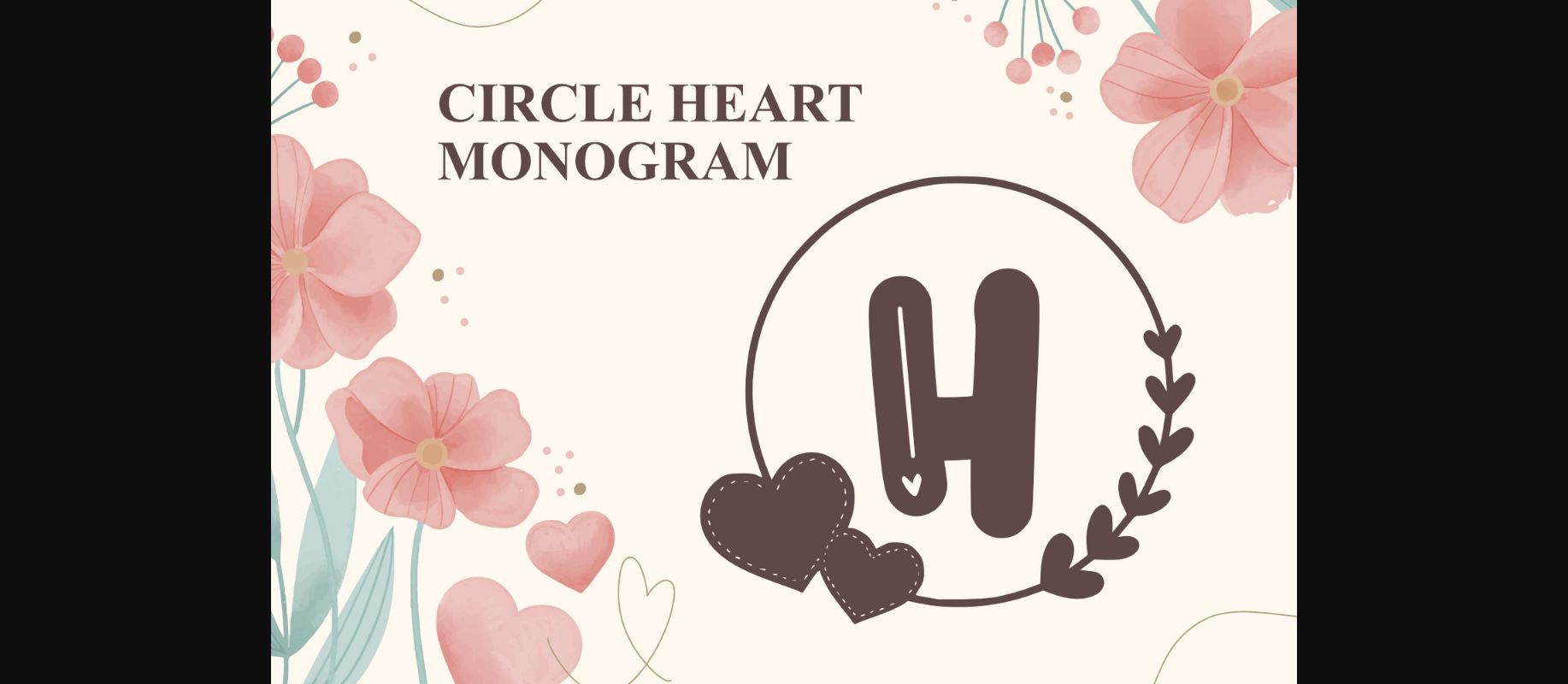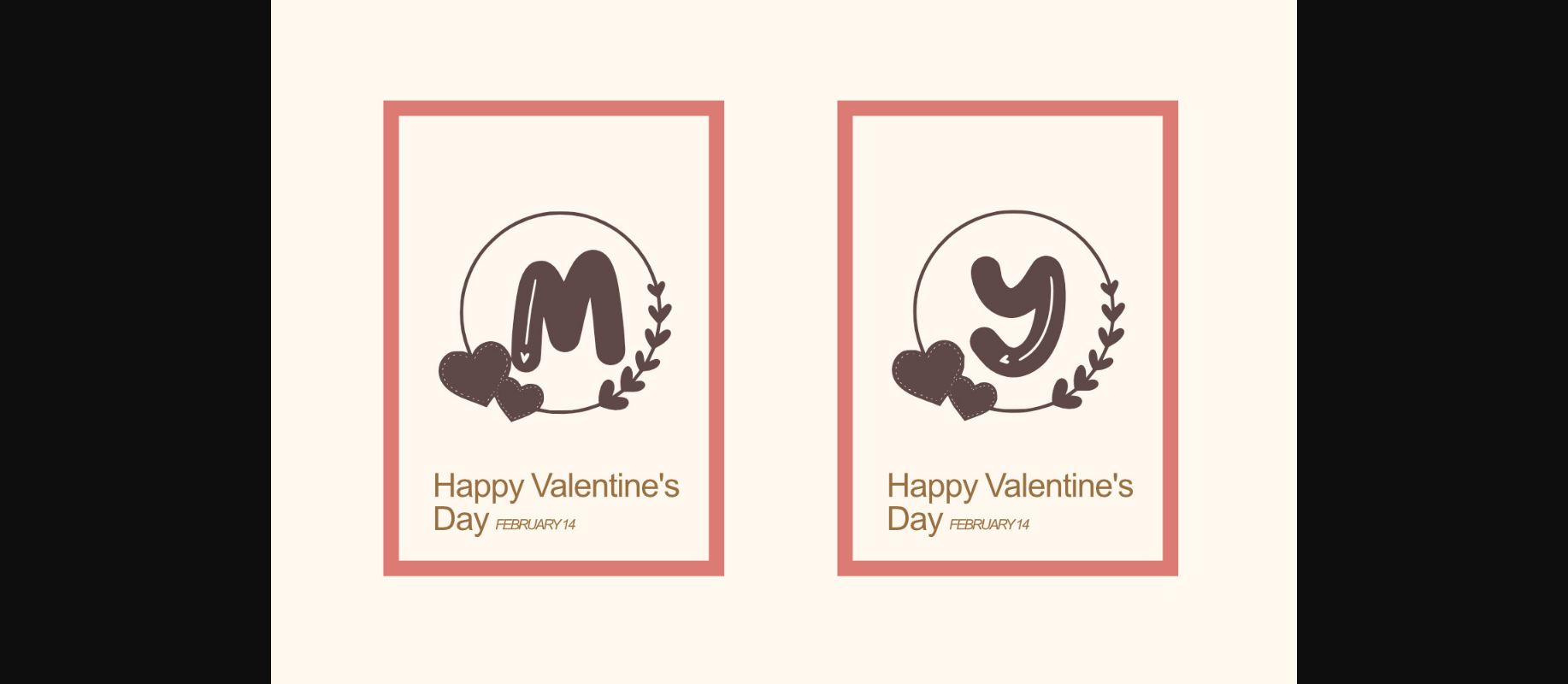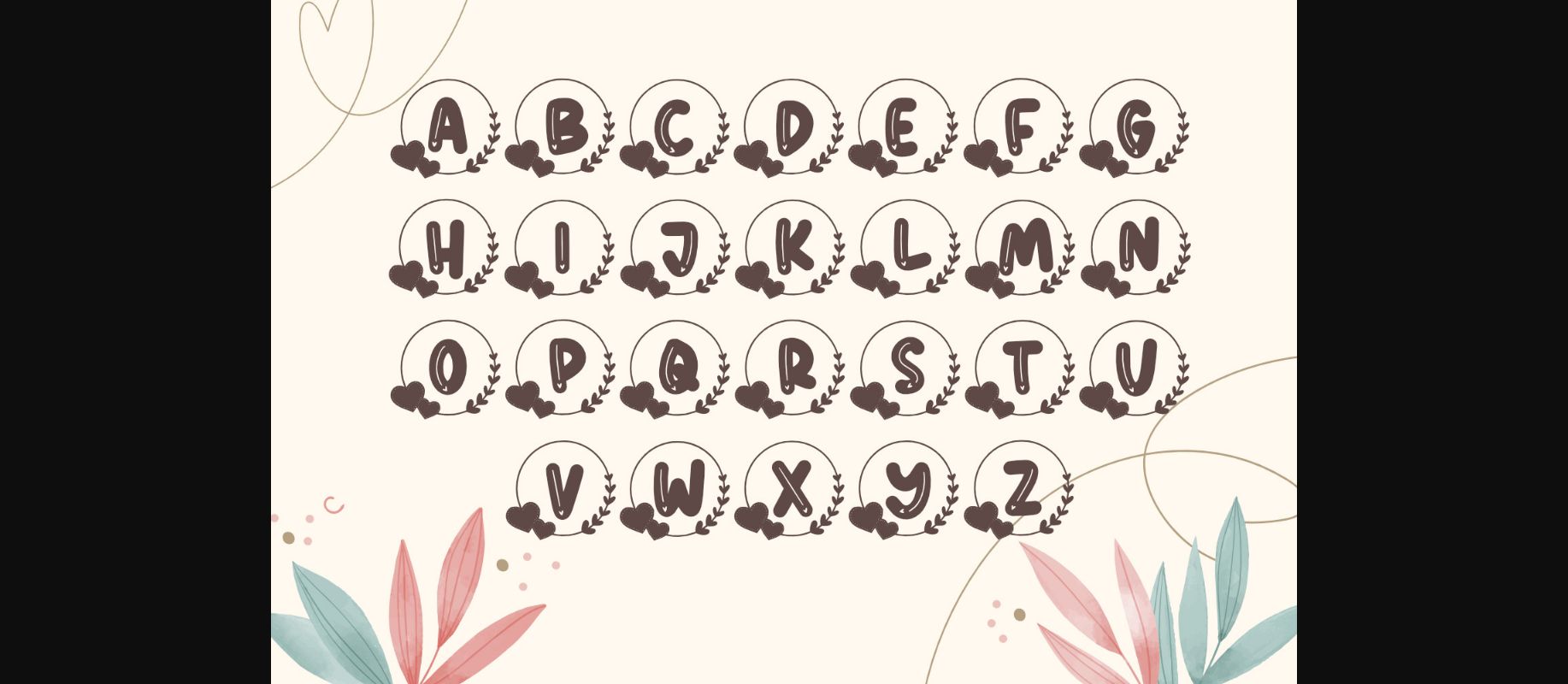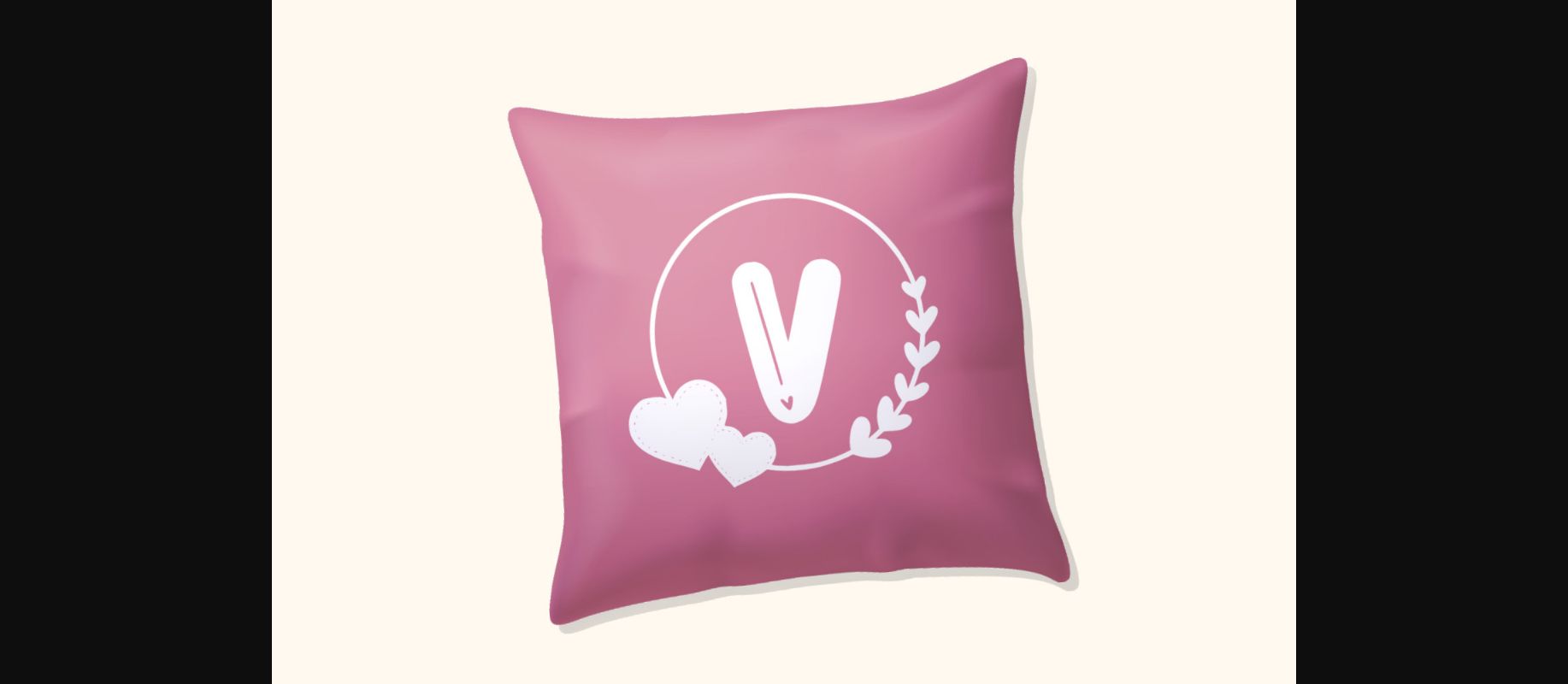
HomeDecorative FontsMonogram Circle Heart Font Decorative Fonts Monogram Circle Heart Font FacebookXPinterestWhatsApp 1 of 6 ... Monogram Circle Heart Font Poster 2... Monogram Circle Heart Font Poster 3... Monogram Circle Heart Font Poster 4... Monogram Circle Heart Font Poster 5... Monogram Circle Heart Font Poster 6... About Monogram Circle Heart Font Monogram Circle Heart is a timeless and delicate decorative font. It features gorgeous capital letters that will take your crafting projects to the next level! DOWNLOAD NOW People also explored Fresh Think Font Sofura Font Hey Tiny Font House Holidays Font Adventure Font Decapoera Font Farmhouse Font Hey Witch Font Fancy Quisley Font 315 0 TagsMonogram Circle Heart Font Previous articleElloyse Love FontNext articleLove Font LEAVE A REPLY Cancel reply Comment: Please enter your comment! Name:* Please enter your name here Email:* You have entered an incorrect email address! Please enter your email address here Website: Save my name, email, and website in this browser for the next time I comment. Personal Use Free Houstonville Personal Use Free Read more about this font Oaklevin Personal Use Free Read more about this font Mail Ray Stuff Personal Use Free Read more about this font Rothwell Personal Use Free Read more about this font BLOG 5 Fonts That Will Dominate Design Trends in 2026 5 Fonts for 2026 That Will Dominate Design Trends Typography plays a critical role in visual communication, and as we look ahead to 2026, it’s... Free vs Paid Fonts: Why Investing in Premium Fonts Is Worth It Best Fonts for T-Shirt Design – Top 2025 Picks How to Install and Use Fonts on Windows, macOS, and Web Projects